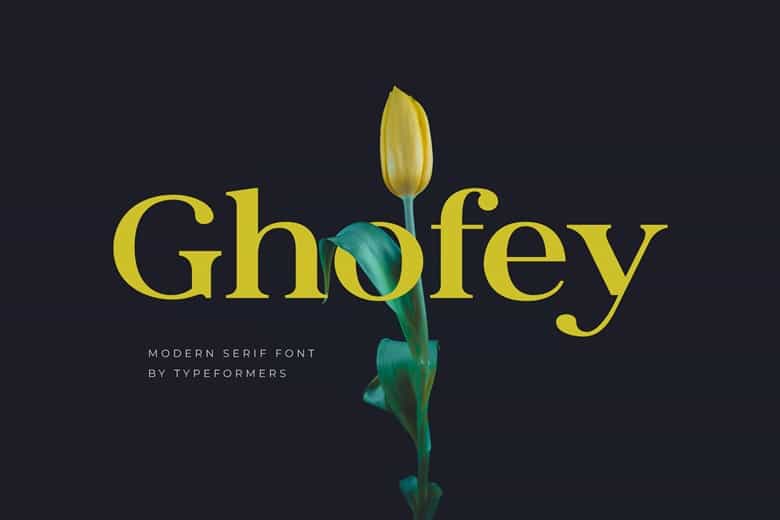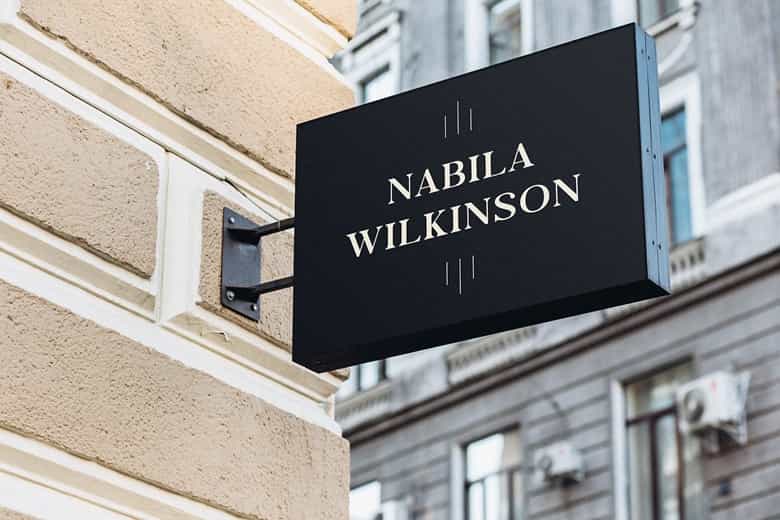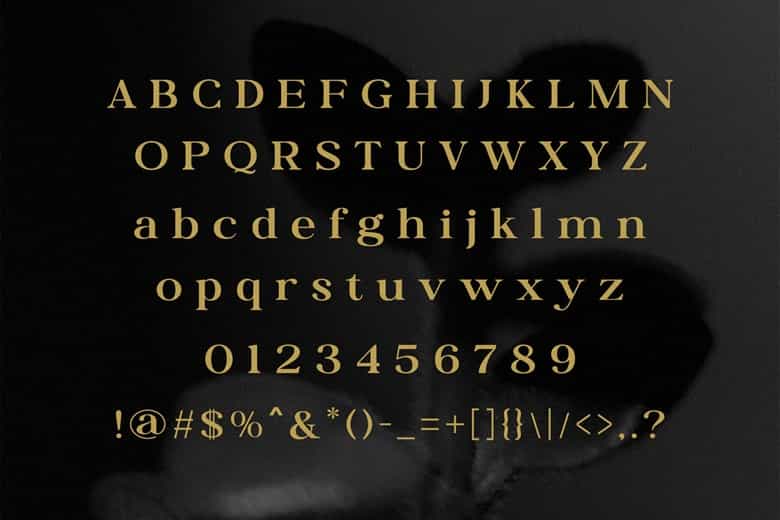
Ghofey is a refined and delicious serif font that is not implying a romantic character but something close to that. This font can be applied to almost every project as it is suitable for both contemporary and old-school styles, business, logos, craft, stickers, sublimation, wedding invitations, and many others.